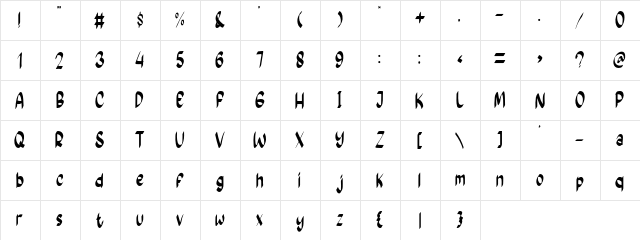
Feel Calm Regular
Design Context for Feel Calm Typeface
Feel Calm is a composed and adaptable typeface that performs quietly and consistently across a wide range of design contexts.